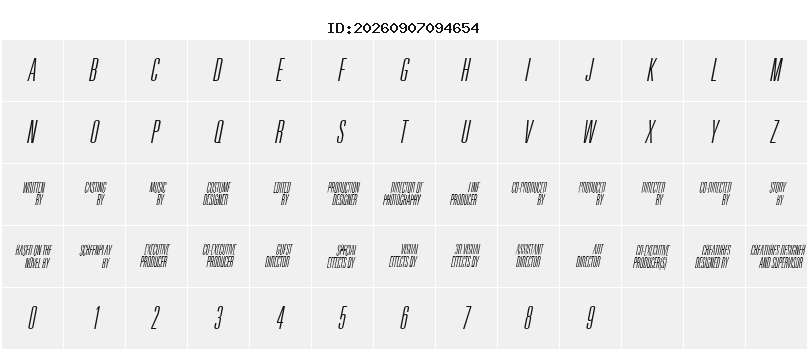
• Font Name: Universal Accreditation
• Manufacturer: TrTg
• Description: Created as an aid to speedy DVD cover design. A Modified Univers © Adobe. Created as an aid to speedy DVD cover design.
Universal Accreditation.ttf is a modern, elegant sans-serif font designed for ultimate readability and visual harmony. Perfect for branding, headlines, web design, and print materials.